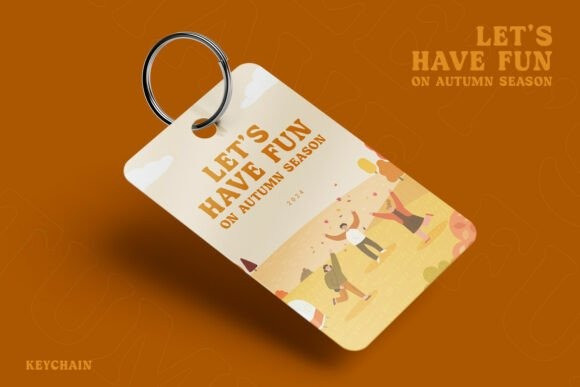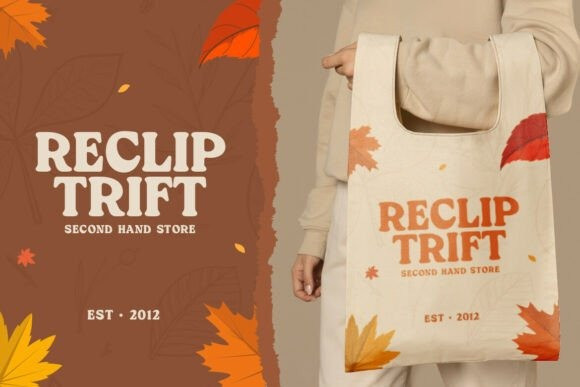
Lufton Font
Lufton Font, a delightful serif typeface that captures the essence of the season with its rounded and playful design. This charming font is perfect for creating inviting logos, eye-catching posters, and memorable branding that resonates with warmth and joy. Whether you’re designing packaging for seasonal products or merchandise that needs a touch of whimsy, Lufton provides the versatility and flair to elevate your projects. With an impressive glyph set of over 250 characters, this font accommodates multilingual needs while offering various ligatures, stylistic alternates, and swashes that enhance its character.
Crafted for both commercial use and artistic expression, Lufton is available in multiple file formats including TTF, OTF, WOFF, and WOFF2, making it easy to integrate into any design workflow. The rounded edges and playful vibe of this font bring a sense of lightheartedness to any text, ensuring that your message stands out. Whether you’re working on branding for a cozy café or seasonal merchandise for a holiday market, Autumn Seasonal Font – Lufton is your go-to choice for creating a memorable visual identity that evokes the beauty of fall.